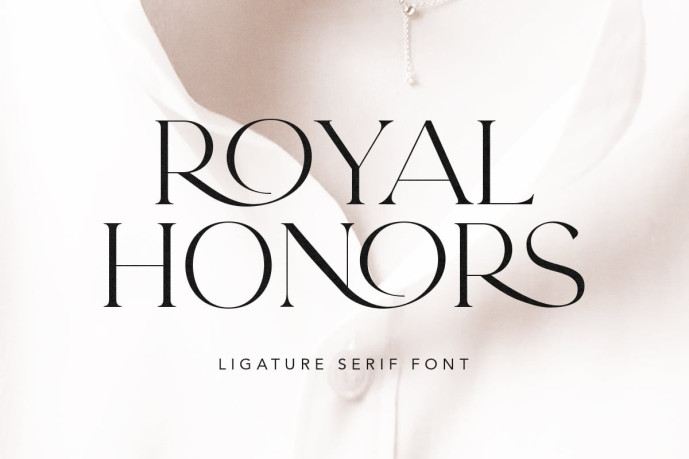
Royal Honors Font is a modern and elegant serif with many ligatures that will make your project more stunning and eye-catching. You can use this font for any project, such as branding, logo, magazine, quotes, etc. You can get beautiful design just from elegant ligatures in lowercase and uppercase. And you will get OTF/TTF file that you can install and use in any software designs especially Adobe Photoshop and Adobe Illustrator. This font also support multi language.